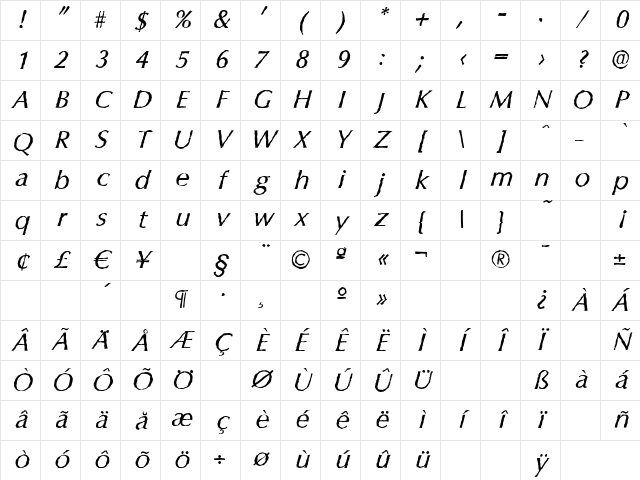
ColumbiaAntique Italic
Complete ColumbiaAntique Italic glyph index. Displaying only characters natively supported by ColumbiaAntique Italic font.
Design Context for ColumbiaAntique
ColumbiaAntique wears its vintage influences proudly, with letterforms that recall mid-century signage, classic packaging, and nostalgia-driven design. The slanted form adds forward momentum and visual energy.
Font Pairing: Combine ColumbiaAntique with a simple slab or neutral sans - period-accurate companions reinforce the vintage feel without competing for attention.
Pro Tip: Lean into ColumbiaAntique's period character by pairing it with aged paper textures, muted colour palettes, and vintage illustration styles.